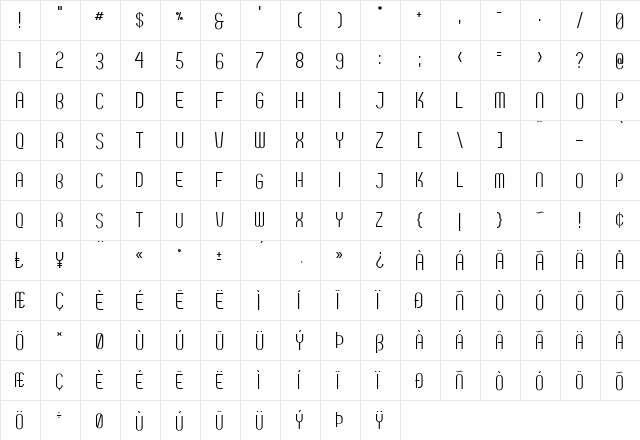
Breve SC Regular
| Foundry | NimaVisual |
| Designer | NimaVisual |
Design Context for Breve SC Typeface
Breve SC is a composed and adaptable typeface that performs quietly and consistently across a wide range of design contexts.